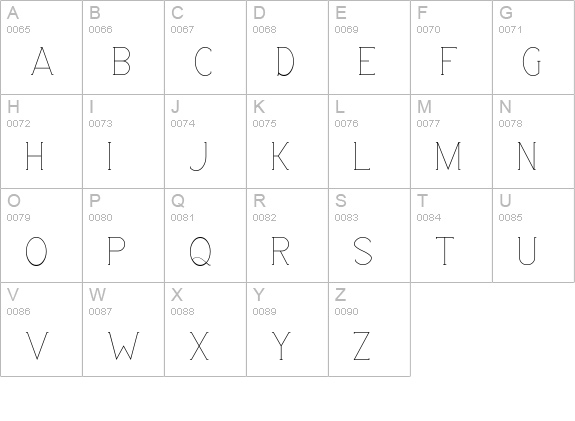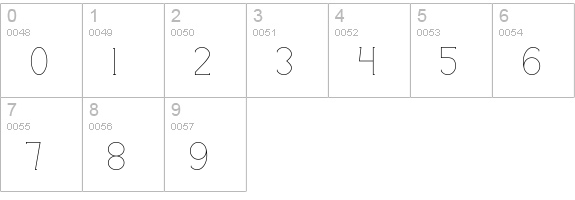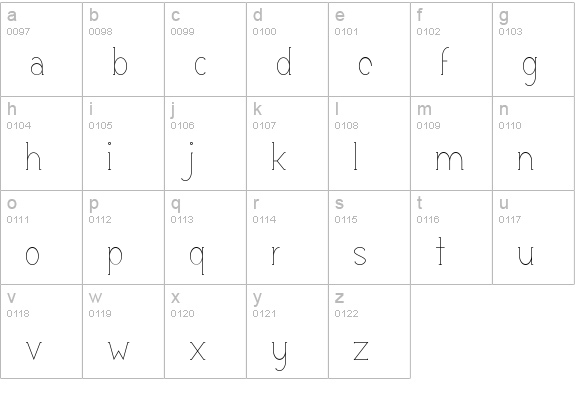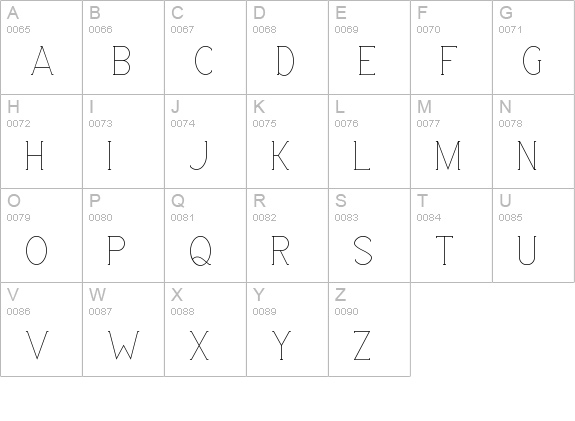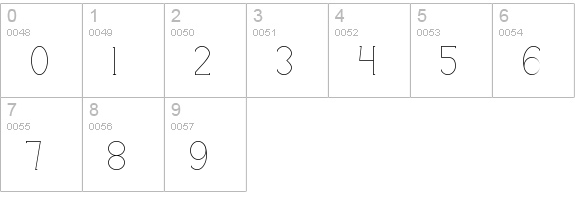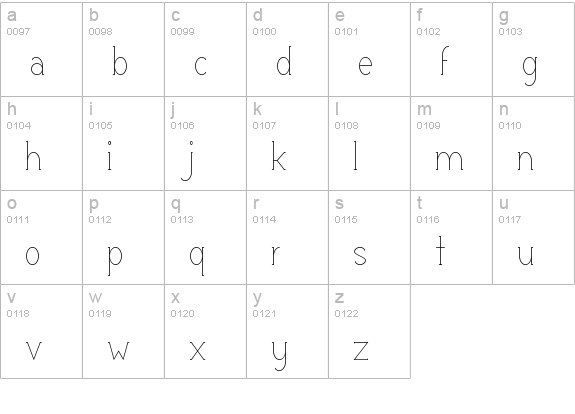
Espacio Font Details
Espacio font is a modern and elegant typeface that combines sleek lines with a touch of sophistication. Its clean and minimalist design makes it perfect for a wide range of design projects, from branding to editorial design. The versatility of Espacio font allows it to be used for both headings and body text, ensuring a cohesive and visually appealing layout. What sets Espacio font apart is its unique blend of simplicity and style, making it a standout choice for designers looking to make a statement with their typography. The font's smooth curves and balanced letterforms give it a timeless and classic appeal that is sure to elevate any project it is used in. Best of all, Espacio font is available for free download at FontsMarket.com, making it easily accessible to designers looking to add a touch of sophistication to their work without breaking the bank. Whether you're working on a branding project, a website design, or any other creative endeavor, Espacio font is sure to impress with its modern and stylish aesthetic.